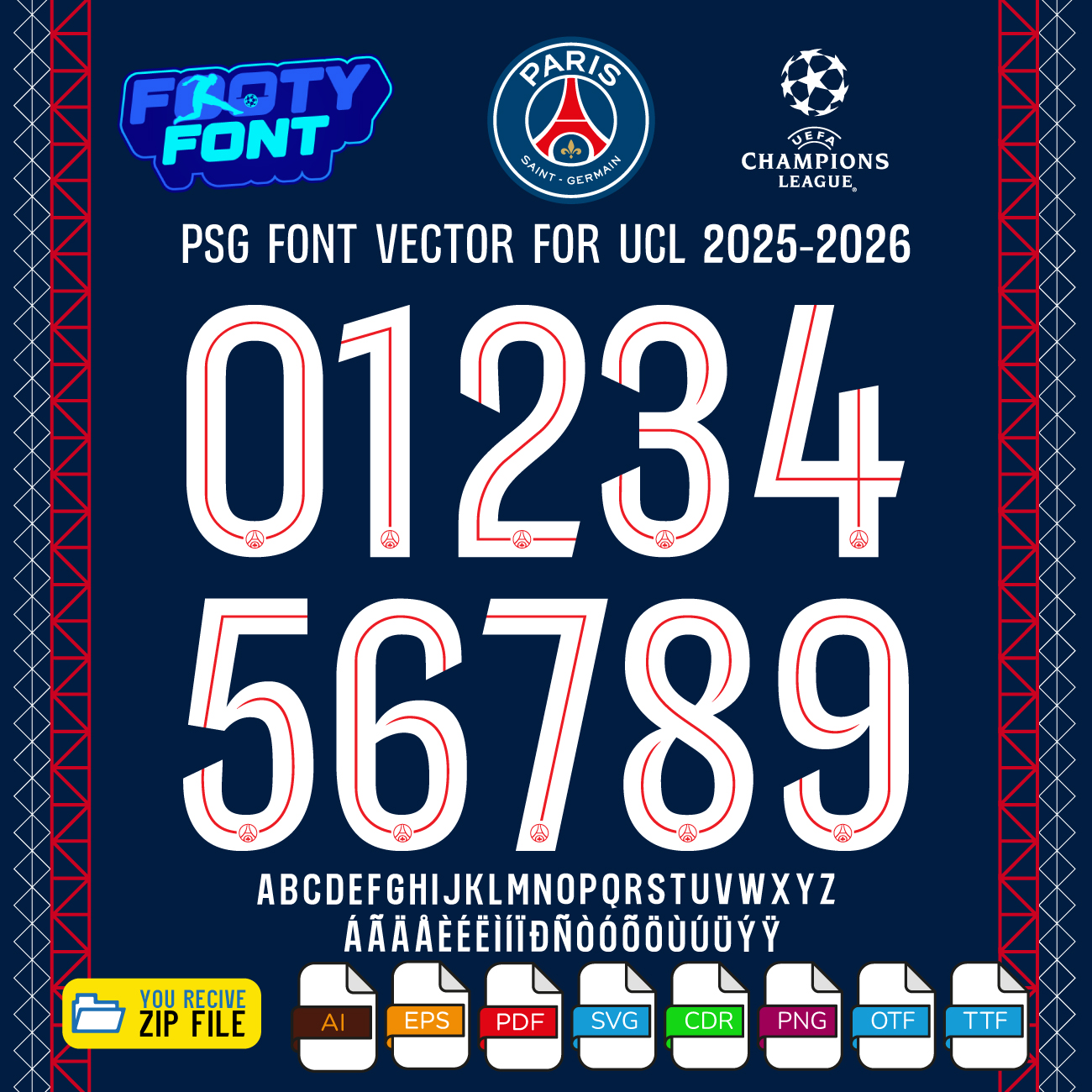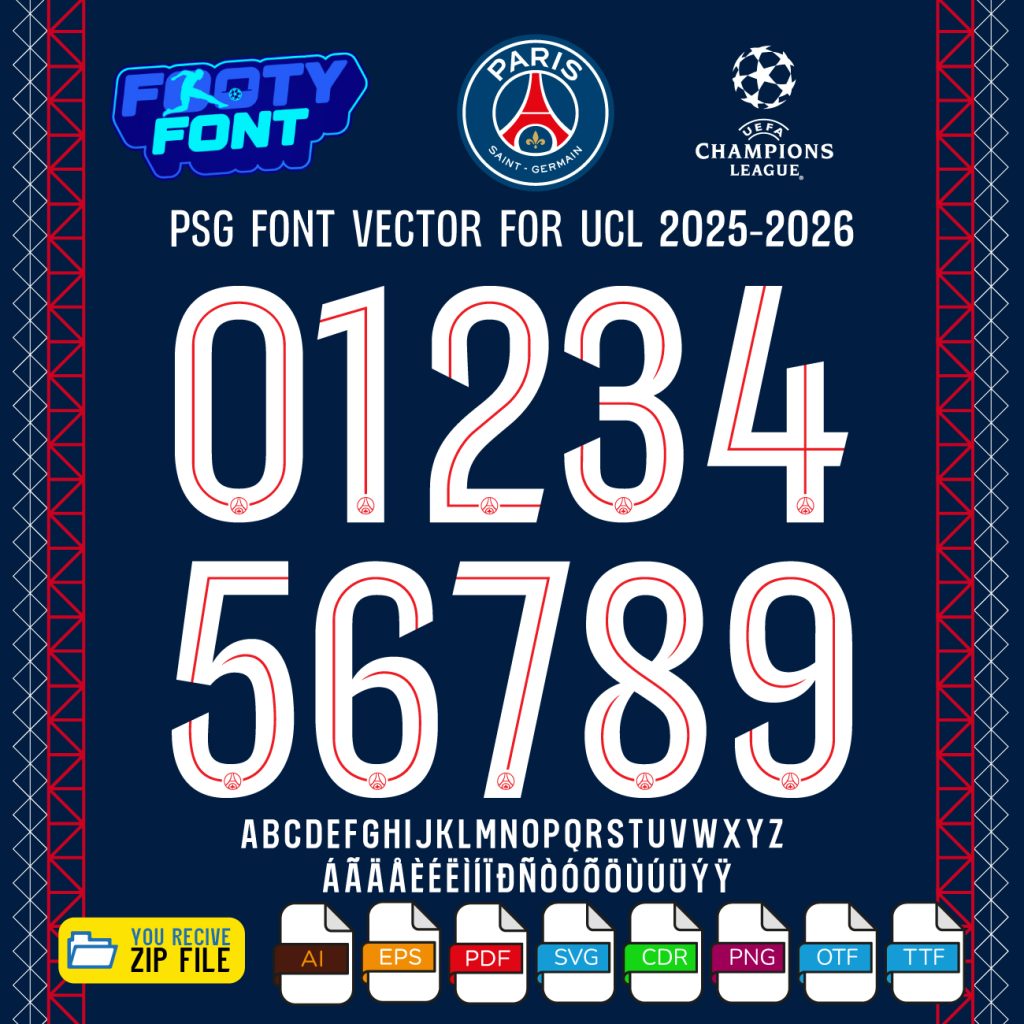
PSG Font Download UCL 2025-2026 Home Kit Bring the magic of European nights at the Parc des Princes into your designs with this premium font inspired by Paris Saint-Germain’s 2025–2026 UEFA Champions League home kit. Crafted to mirror the bold Rouge-et-Bleu style, this typeface captures the energy and elegance of PSG’s latest campaign. Worn by global stars like Khvicha Kvaratskhelia, Warren Zaïre-Emery, and Ousmane Dembélé, this font reflects the club’s dynamic identity and “Ici c’est Paris” spirit. Whether you’re designing custom jerseys, fan posters, or digital artwork, this kit gives you the tools to create with confidence. ⭐ What’s Included Complete Font Package (PSG 2025–2026 UCL Home Kit) ✔ OTF (OpenType Font) ✔ TTF (TrueType Font) Complete Vector Package Includes full A–Z alphabet and 0–9 numbers in: ✔ AI (Adobe Illustrator) ✔ EPS ✔ PDF ✔ DXF ✔ SVG Separated Number Files Individual digits (0–9) in: ✔ PNG ✔ SVG ✔ PDF Start Designing Today Download instantly and start creating personalized jerseys, social media graphics, or fan merchandise that celebrates your favorite team. Whether you’re a professional designer or a passionate supporter, this font kit is built for creativity. ️ Compatible With Adobe Illustrator Adobe Photoshop CorelDRAW Figma Cricut & Silhouette (SVG/DXF) ⚠️ Fan Disclaimer This PSG Font UCL 2025-2026 (Home Kit) is an independent, fan-inspired design and is not officially affiliated with Paris Saint-Germain F.C., UEFA, any football league, or the official kit manufacturers. Why Fans Love It Authentic look inspired by PSG’s 2025–2026 UCL kit Easy-to-use files for Cricut, Photoshop, Illustrator, Figma Perfect for jerseys, posters, and fan art Instant download, no waiting